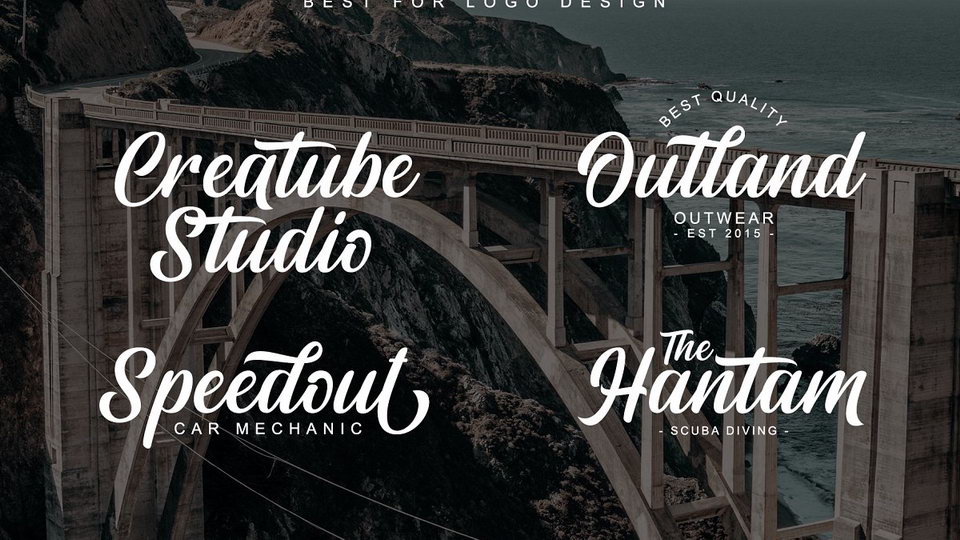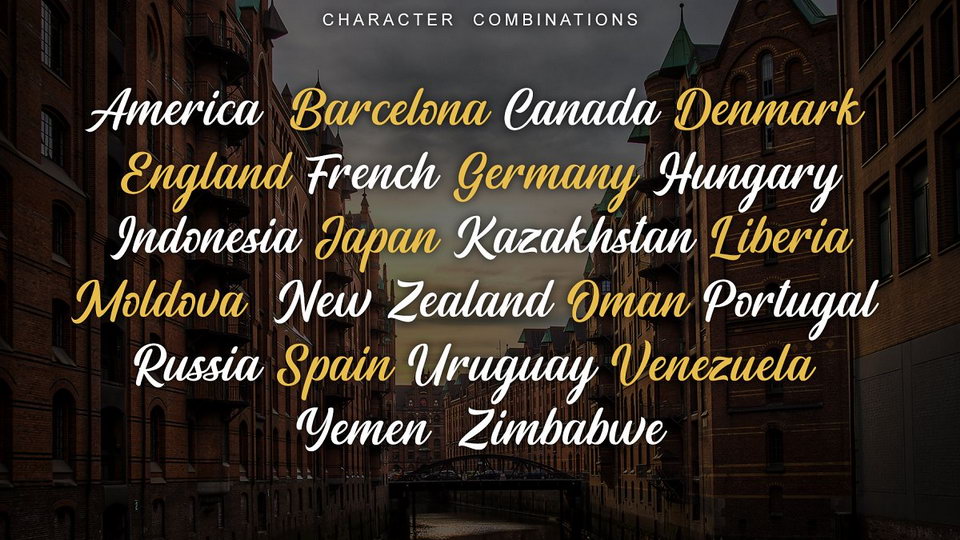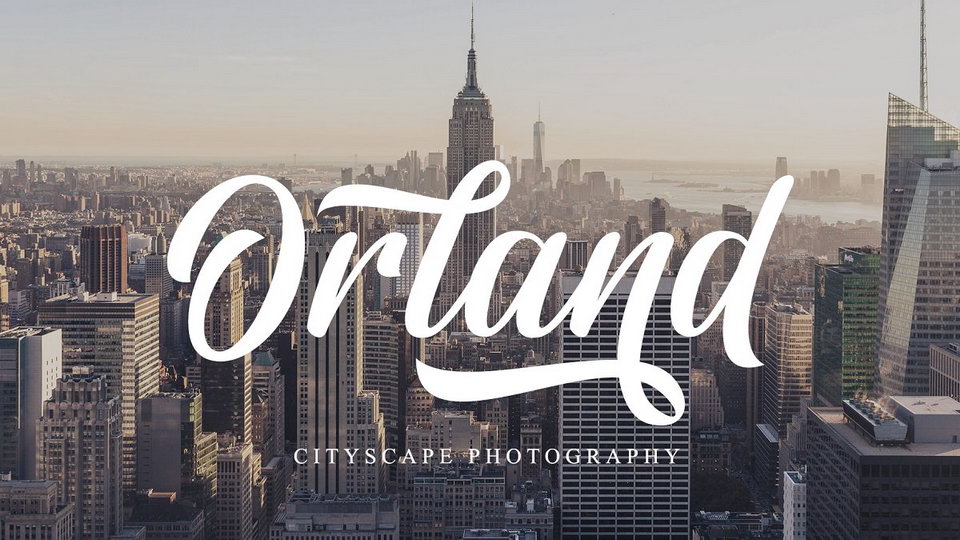
Rightland is a modern bold hand lettered script font, which is very strong and clean, has elegant swashes in each curve that can be applied to various design needs such as logos, posters, branding packaging and others. This font supports Multi-Language and OpenType features and it is PUA encoded.